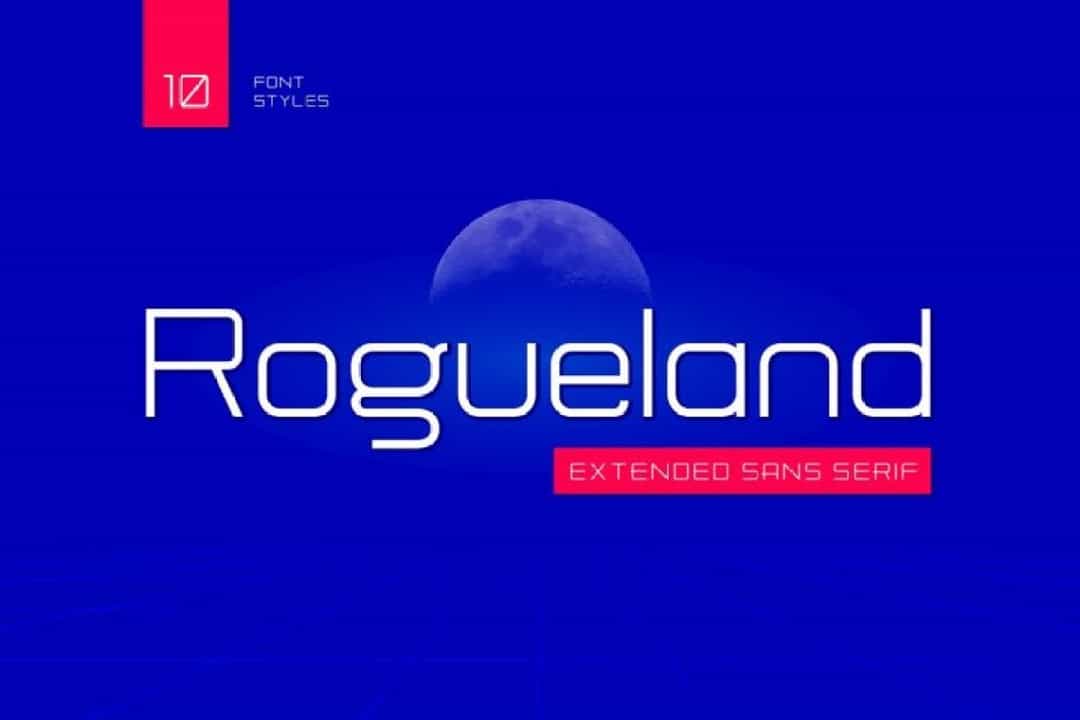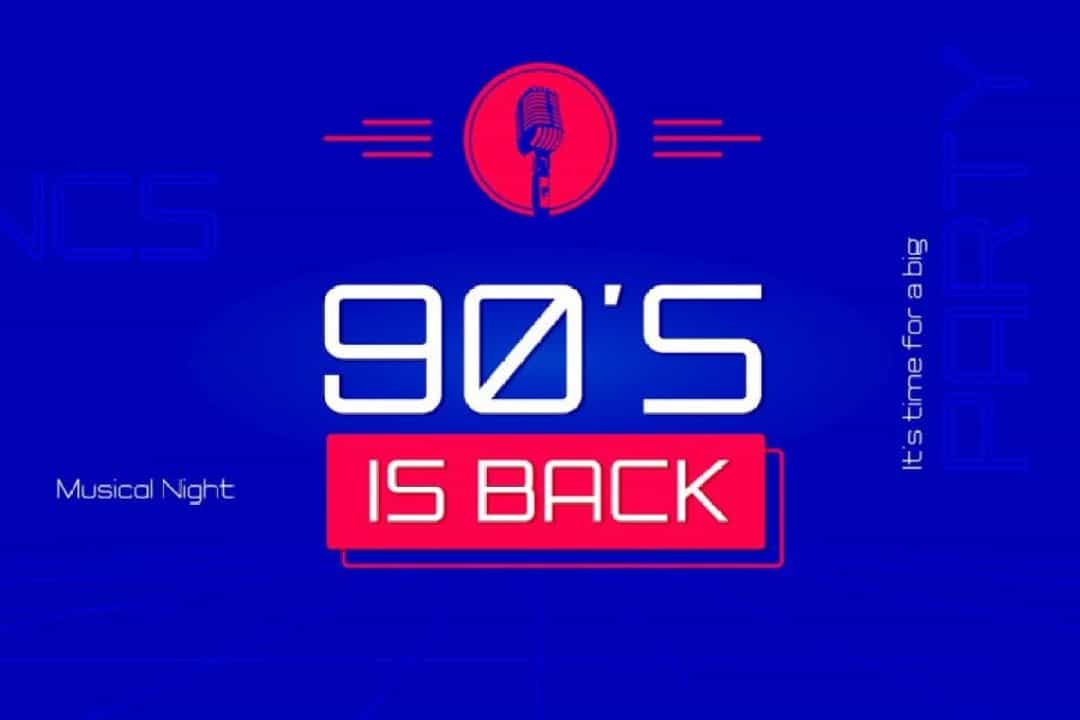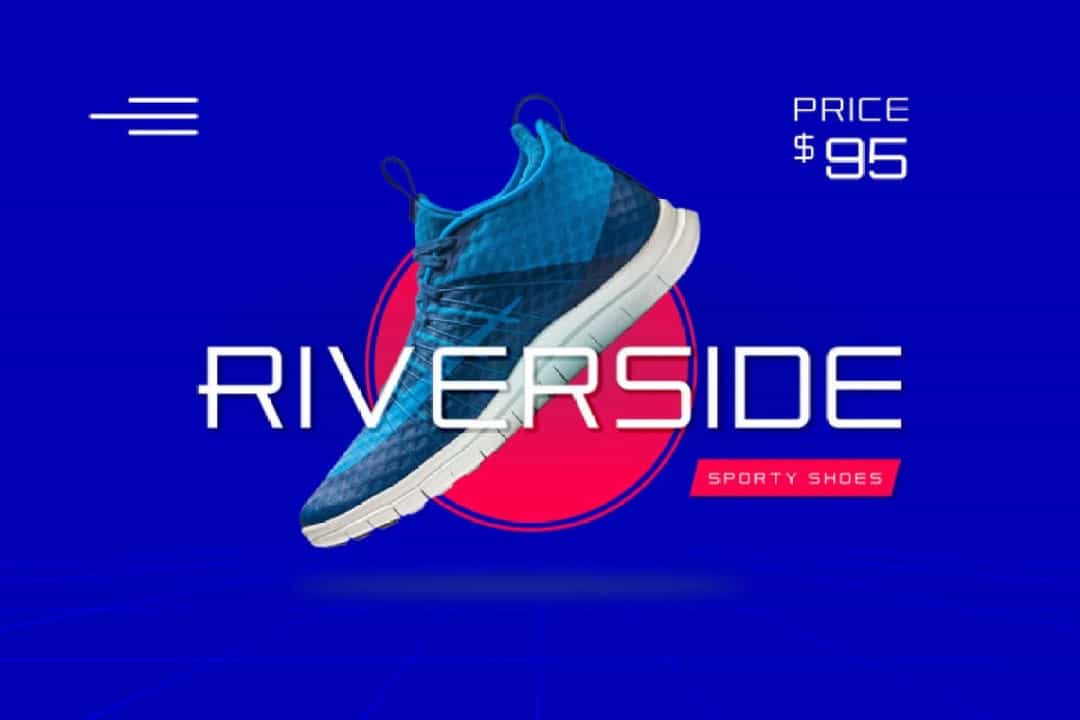
Rogueland is an Extended Sans Serif font family that is original in the world and has a fantastic harmony of the round and acute; the elements of its design are also rather extravagant. A fresh, yet charming font that can be used in any project, but might be most effective when used for titles.